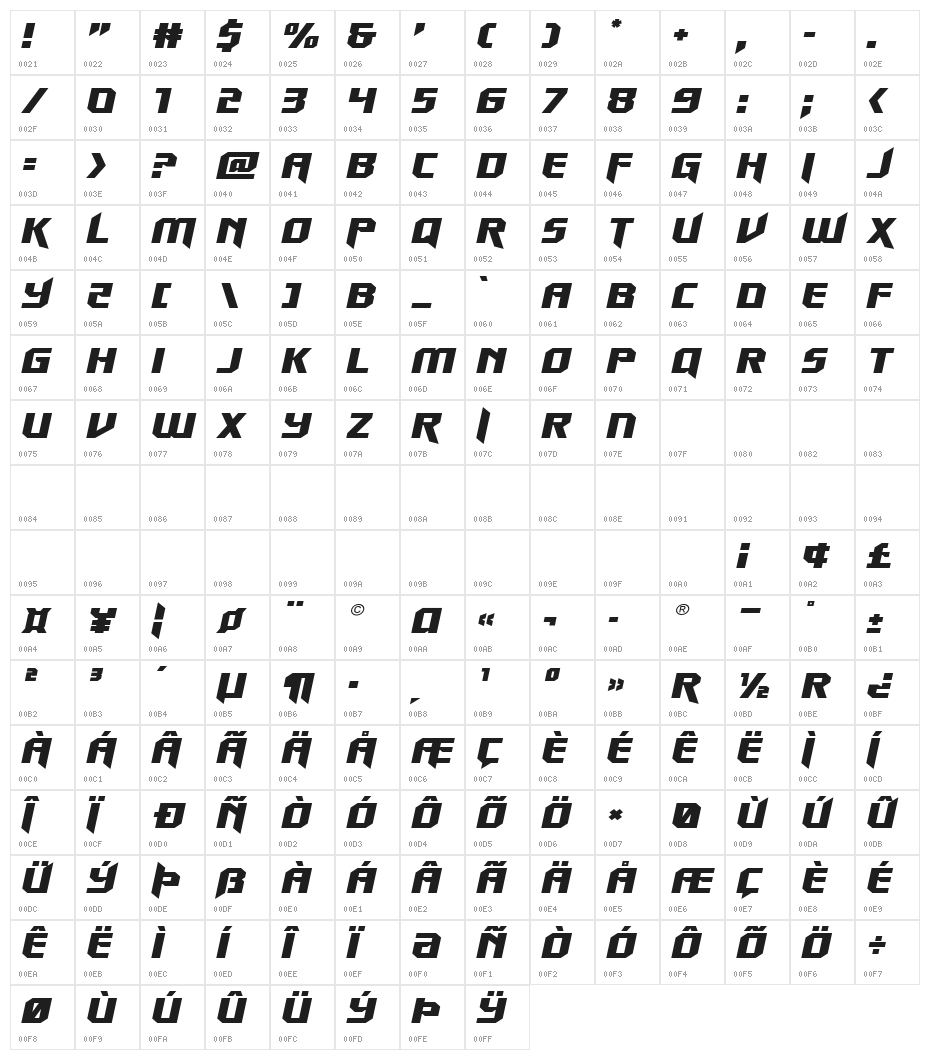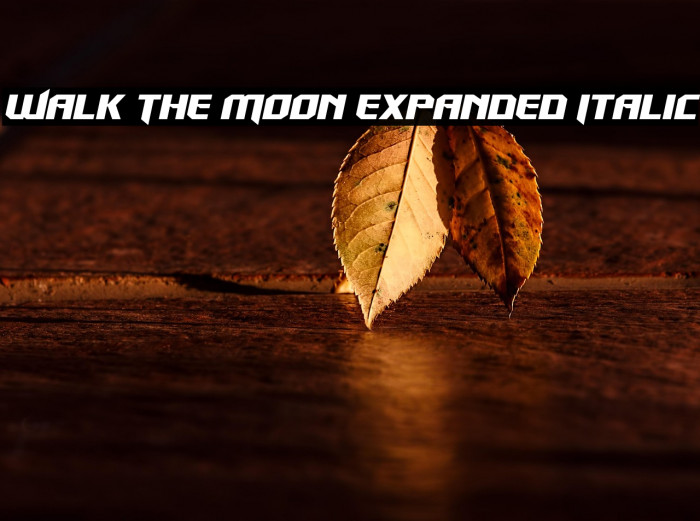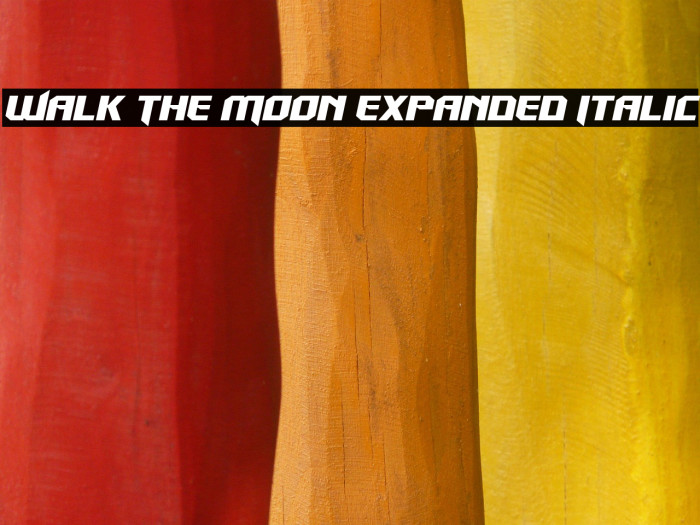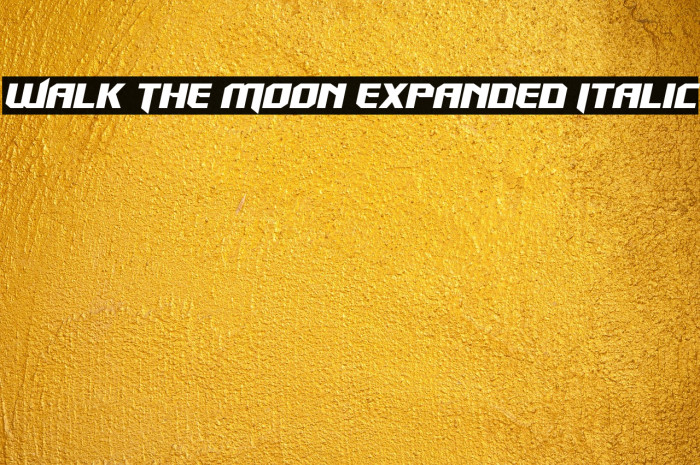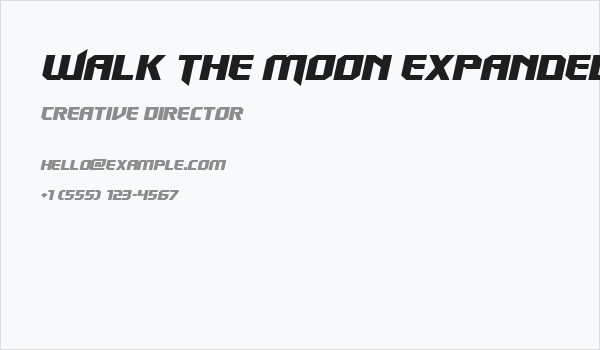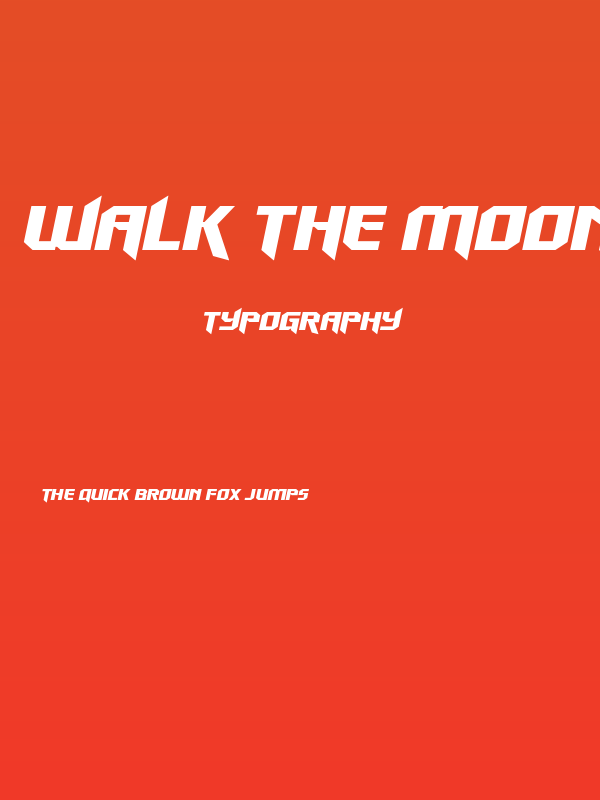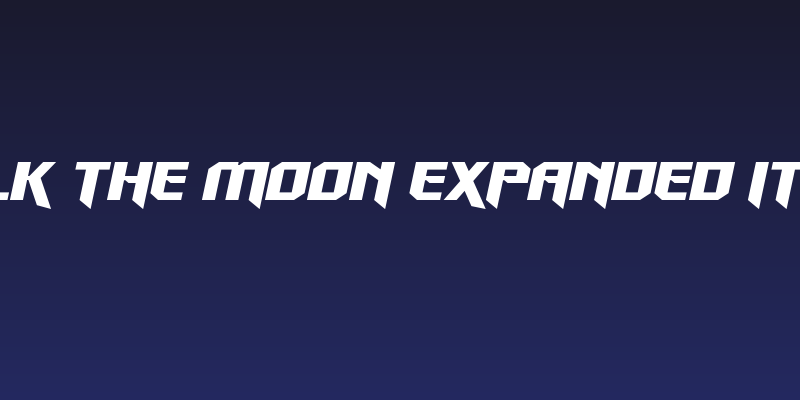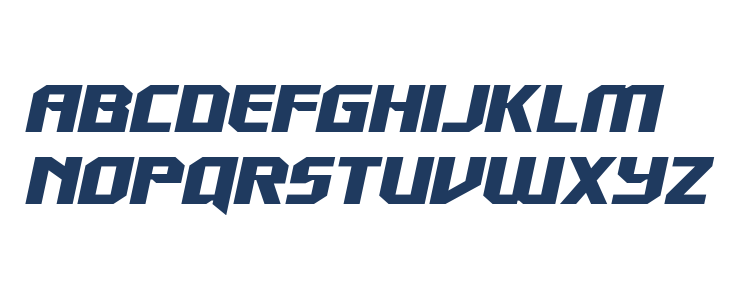
Walk The Moon Expanded Italic Font
Walk The Moon Expanded Italic Description
This font features a bold and dynamic design with an italicized slant, giving it a sense of movement and energy. The characters are expanded, providing a wide and commanding presence. Each letter is crafted with sharp angles and clean lines, creating a futuristic and modern appearance. The uppercase and lowercase letters maintain a consistent style, while the numerals and special characters complement the overall aesthetic. This font's unique style makes it suitable for projects that require a strong visual impact.